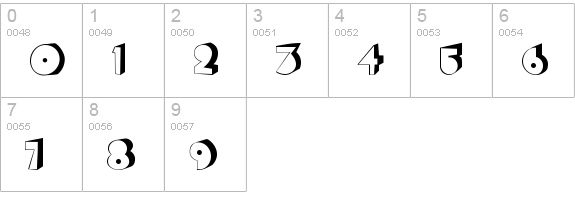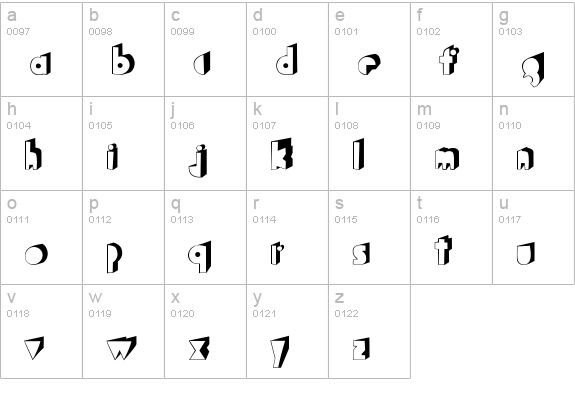
Bagaglio3D font is a dynamic and eye-catching typeface that brings a sense of depth and dimension to your text. Its three-dimensional design adds a modern and stylish touch to any project, making it perfect for titles, headings, and other display purposes. The unique 3D effect of Bagaglio3D font gives your words a sense of volume and presence, making them stand out with a bold and captivating look. What's even better is that Bagaglio3D font is available for free download at FontsMarket.com. This means you can easily add this striking font to your collection without any cost, allowing you to unleash your creativity and enhance your designs with this visually appealing typeface. Don't miss out on the opportunity to elevate your projects with Bagaglio3D font and make a lasting impression on your audience.